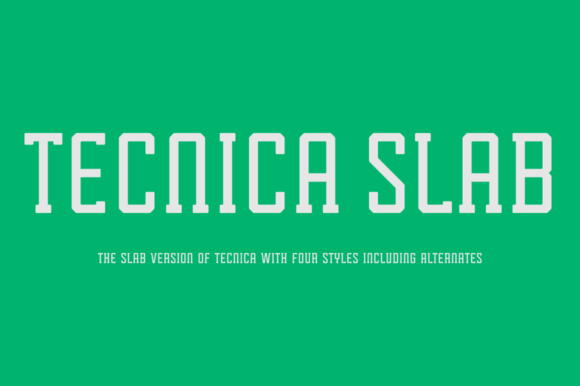
Unleash the Timeless Elegance and Playful Vitality of Tecnica Slab Family Font: Where Tradition Meets Innovation
In a world saturated with digital clutter, your designs deserve a font that speaks volumes without uttering a single word. Enter Tecnica Slab Family Font, the brainchild of Graviton Font Foundry and the visionary designer, Pablo Balcells. This modular, geometric, slab serif typeface is not just a font; it's an artistic expression that captivates, enchants, and elevates your designs to new heights.
With its slightly condensed design and subtle rounded angles, Tecnica Slab exudes a timeless elegance that harkens back to the golden age of typography. Its firm, bold strokes create a classic appearence, while the alternate styles inject a touch of playfulness and dynamism, transforming your designs into visually striking masterpieces.
Crafted with meticulous attention to detail, Tecnica Slab boasts an impressive arsenal of 4 styles, 2 weights, and alternates, each meticulously designed to cater to a wide range of design needs. Whether you're crafting captivating headlines, engaging short texts, or immersing your readers in middle length text blocks, Tecnica Slab adapts seamlessly, delivering exceptional legibility and visual appeal.
But Tecnica Slab is more than just a beautiful font; it's a versatile chameleon that effortlessly adapts to diverse design landscapes. Its inherent charm shines through in both web and print applications, making it the perfect choice for websites, blogs, marketing materials, branding projects, and a myriad of other creative endeavors.